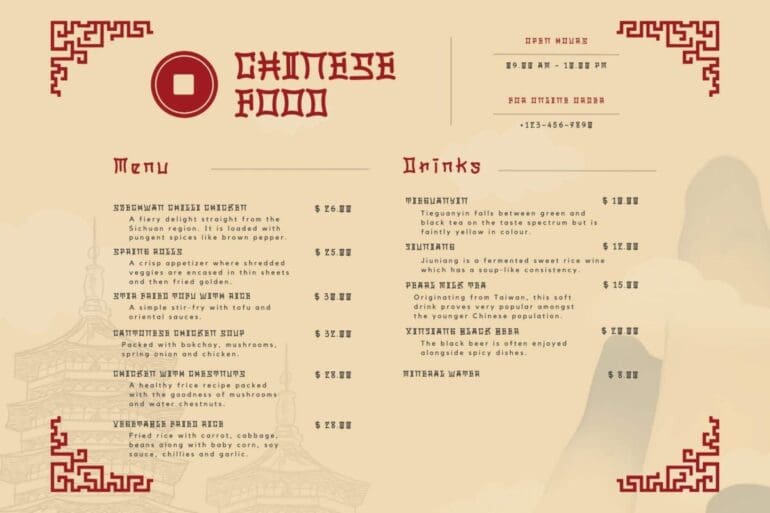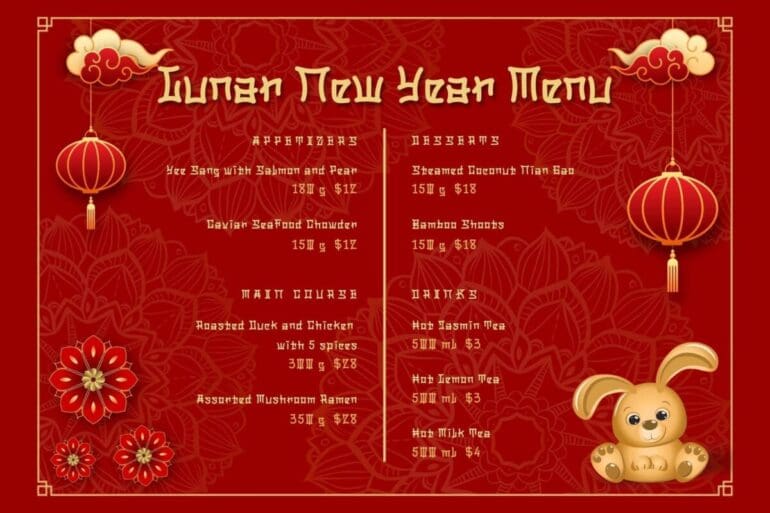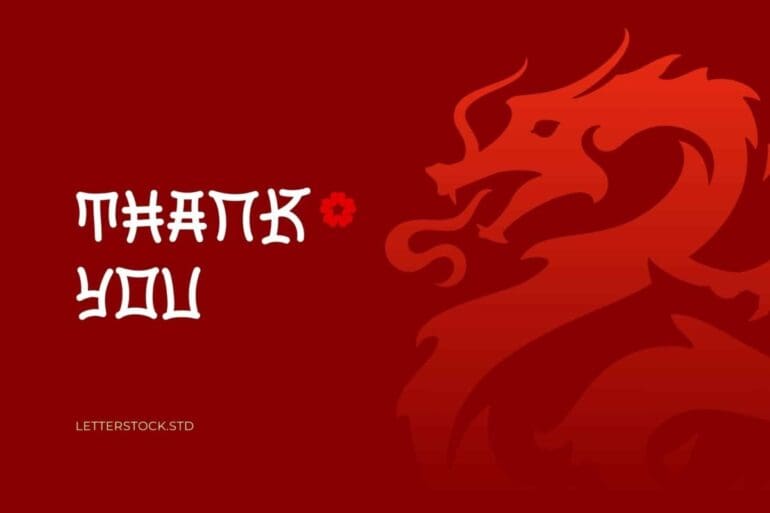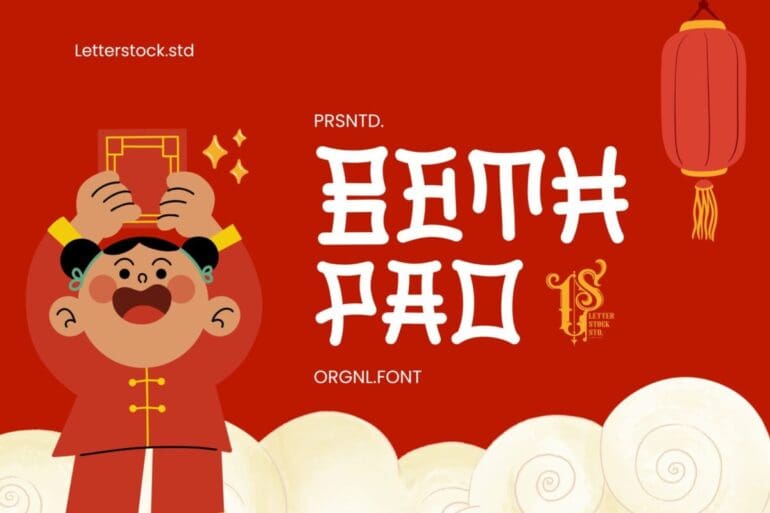
Beth Pao Font
Beth Pao is a whimsical and playful decorative font that captures the charm of hand-drawn lettering. Perfect for adding a touch of fun and creativity to your projects, this font features unique and quirky characters that stand out with their bold, yet friendly, design. Ideal for invitations, greeting cards, posters, and any project that needs a splash of personality, Frankie Pips brings a delightful and artistic flair to your typography. Let your creativity soar with this one-of-a-kind font that promises to make your designs truly unforgettable.